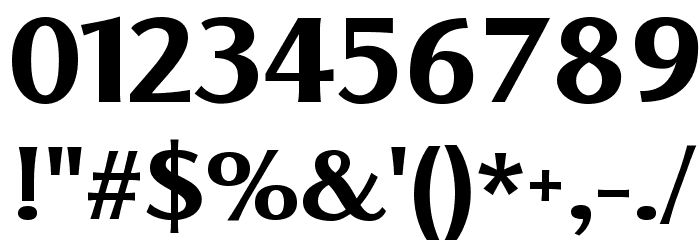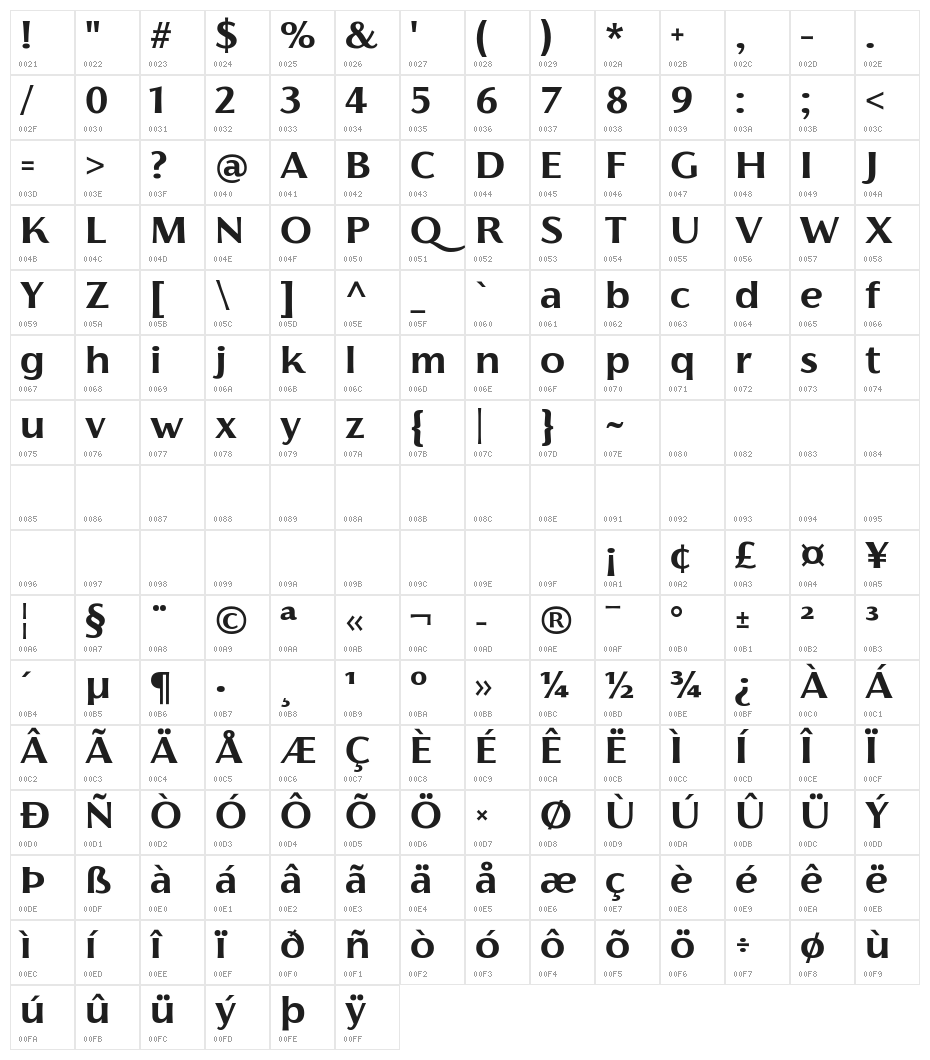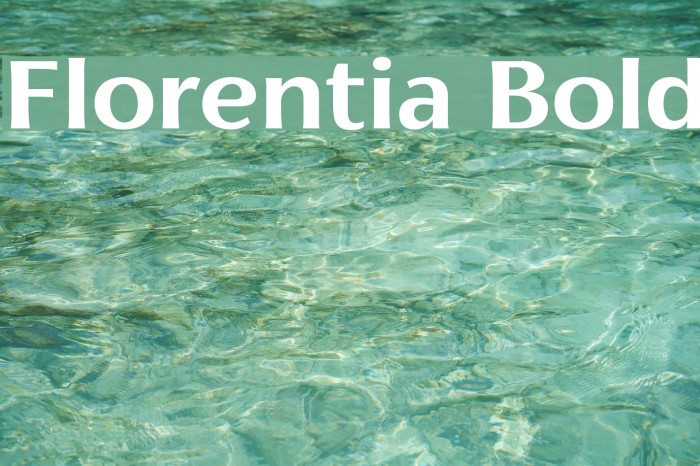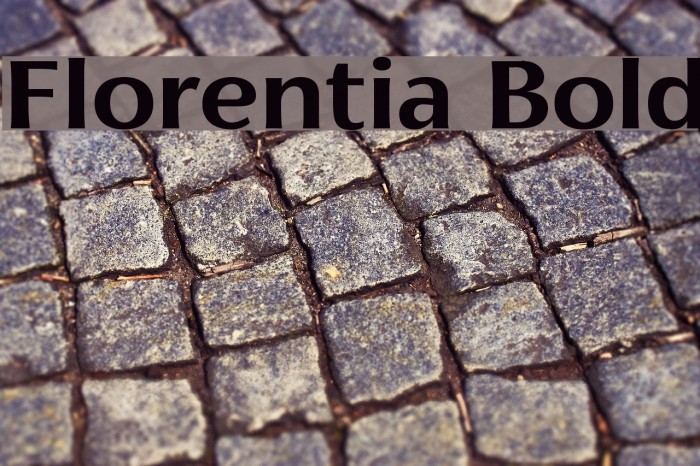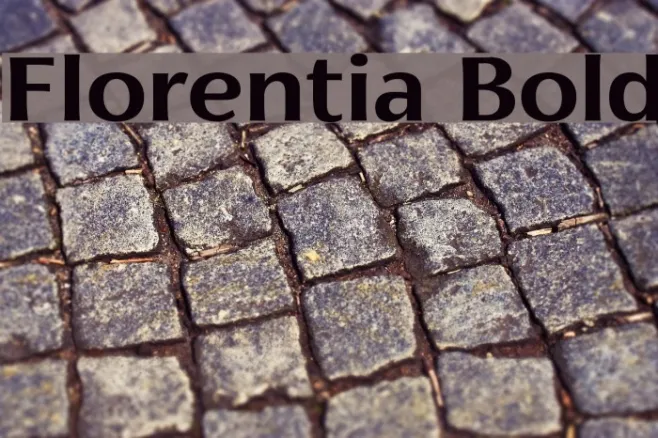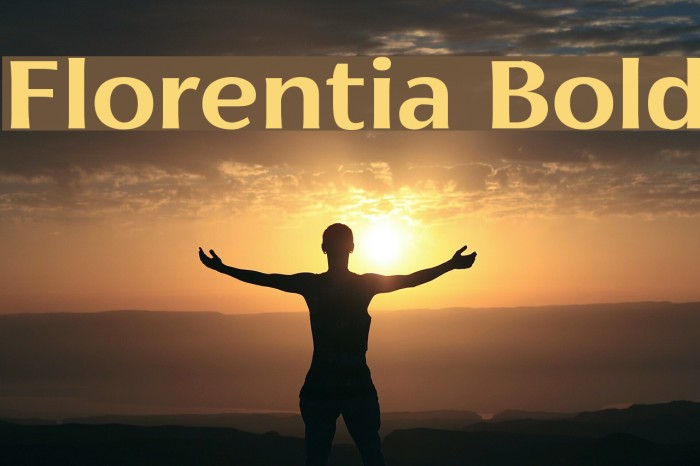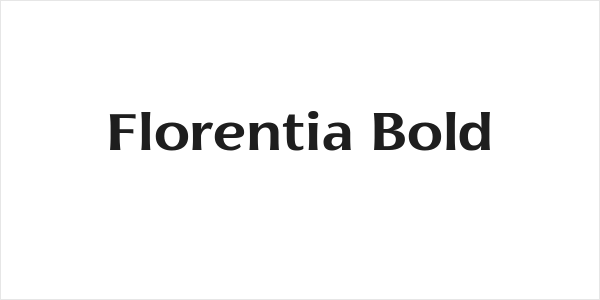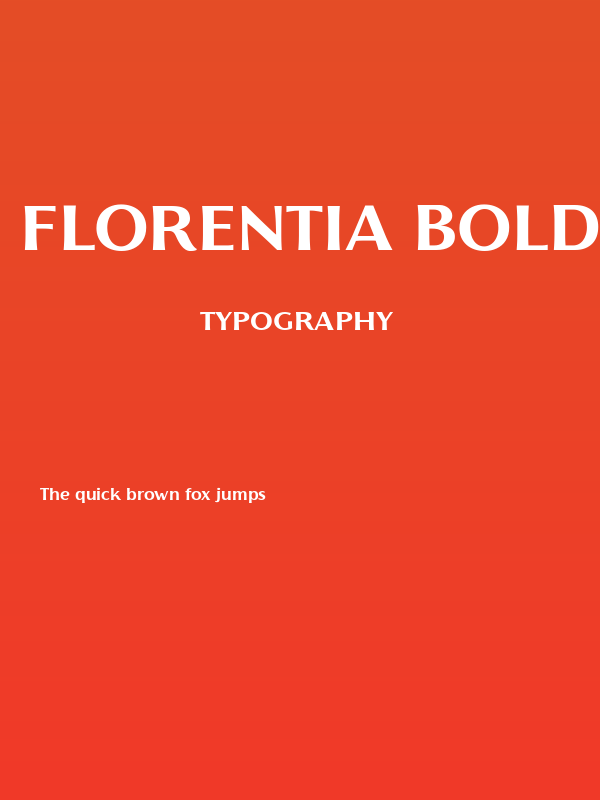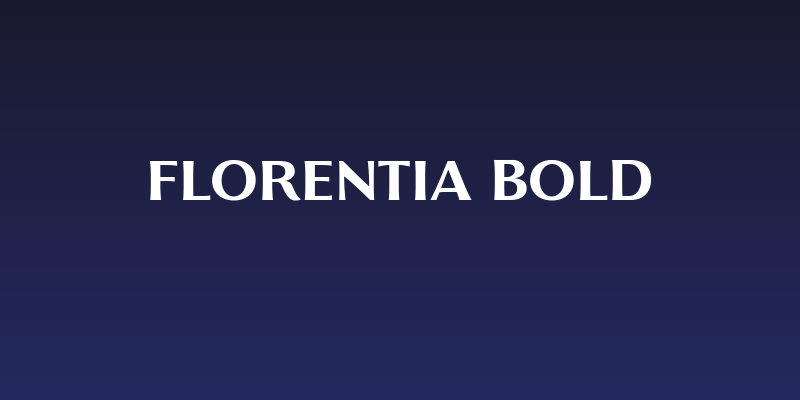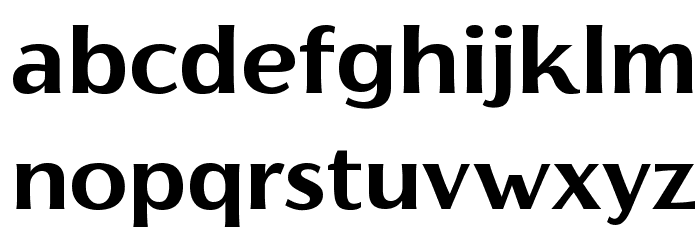
Florentia Bold Font
Florentia Bold Description
This font exhibits a bold and assertive presence, characterized by its strong and clean lines. The uppercase letters are well-proportioned, with a slight curvature that adds a touch of elegance to the overall appearance. The lowercase letters maintain a consistent style, ensuring readability and coherence. The numerals are clear and distinct, making them suitable for various applications. Special characters are included, providing versatility for different design needs. The font's overall design is modern yet timeless, making it adaptable for both contemporary and classic projects.
| Proposed Projects | Ideal for branding, advertising, headlines, and editorial design. |